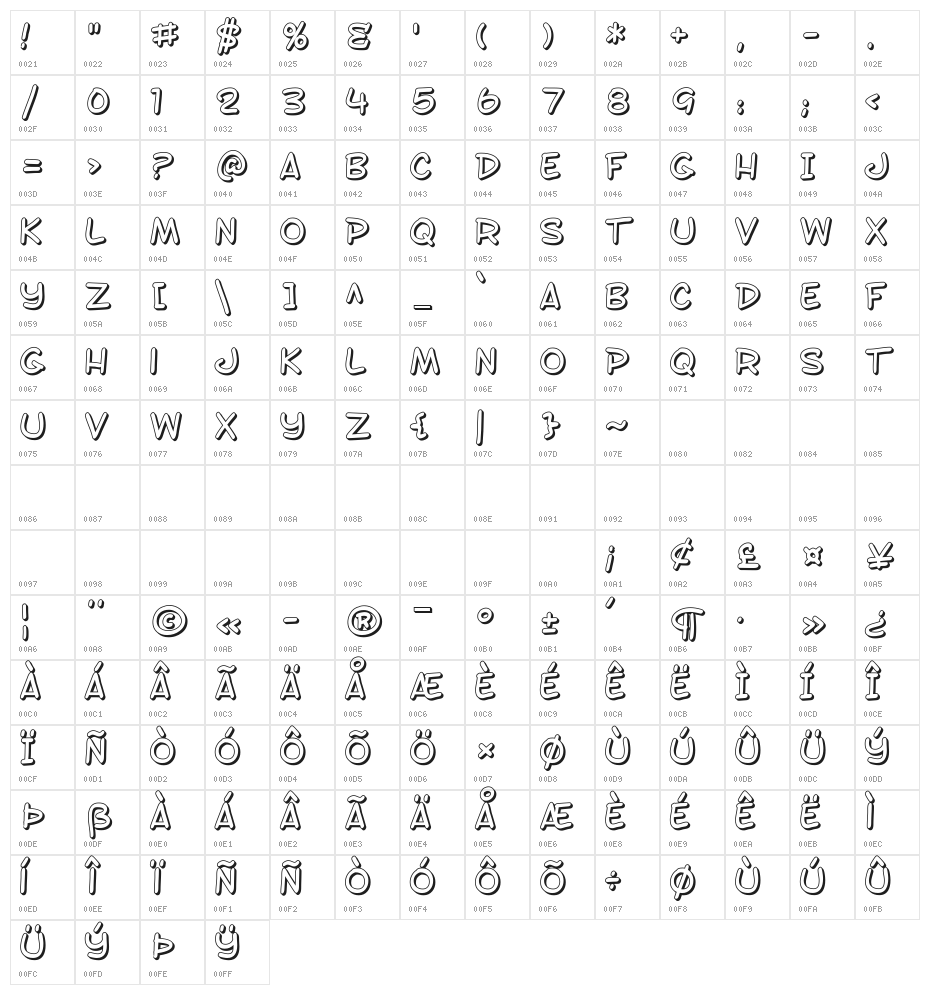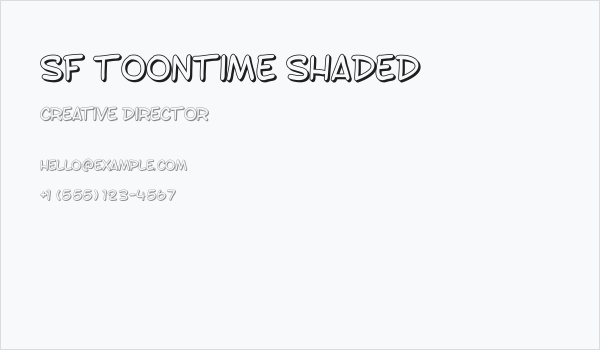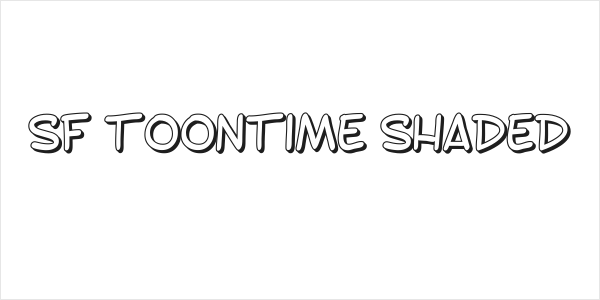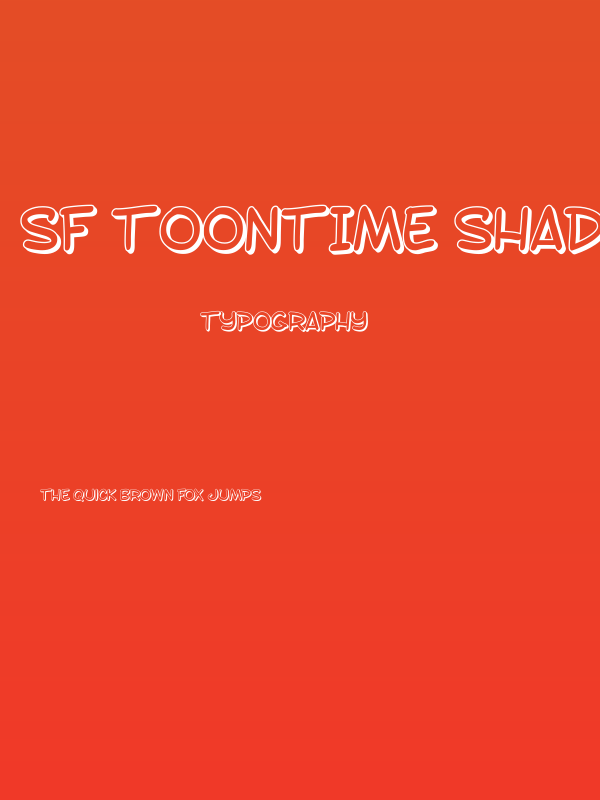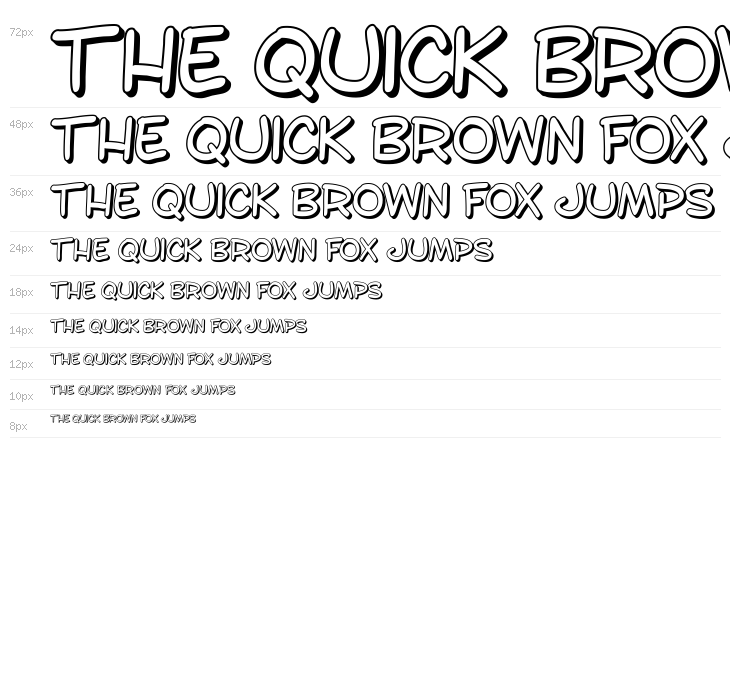
SF Toontime Shaded Font
SF Toontime Shaded Description
This playful and bold font features a cartoonish style with a shaded effect that adds depth and dimension to each character. The letters are rounded and slightly inflated, giving them a whimsical and friendly appearance. The shading is consistent across all characters, enhancing the three-dimensional look. This font is highly legible, with clear and distinct letterforms that maintain readability even in smaller sizes. The numbers and special characters follow the same design principles, ensuring a cohesive look throughout. Its unique style makes it stand out, making it ideal for projects that require a fun and engaging visual element.
| Proposed Projects | Ideal for children's books, comic strips, playful branding, and event posters. |